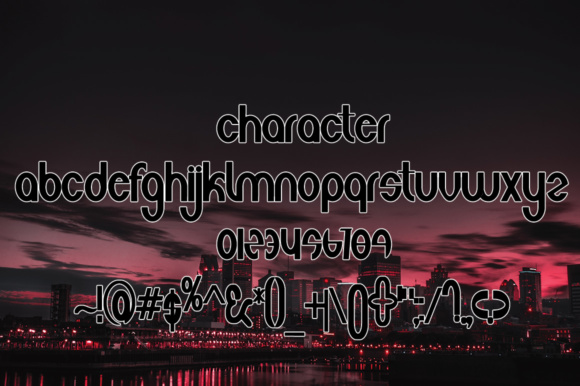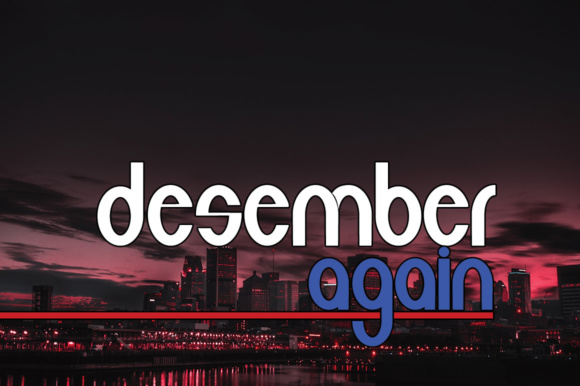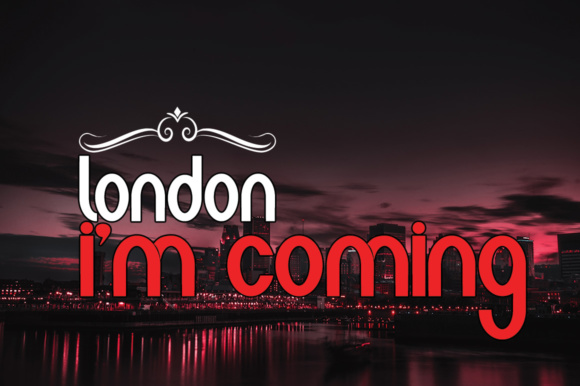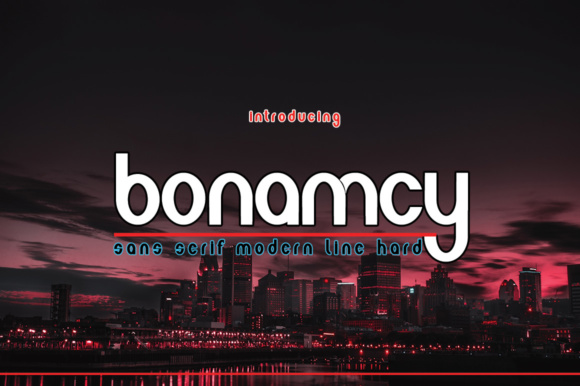
Discover the Bold and Beautiful Bonamcy Font
Are you a designer or crafter looking for a unique and eye-catching font to elevate your creative projects? Look no further than the Bonamcy Font, a stunning rounded, bold sans font that’s sure to make a statement. In this article, we’ll dive into the world of Bonamcy, exploring its features, benefits, and uses, as well as provide tips and inspiration for incorporating it into your work.
What is Bonamcy Font?
Bonamcy is a rounded, bold sans font that’s perfect for designers and crafters seeking a modern, yet approachable aesthetic. Its smooth, curved lines and bold weight make it an excellent choice for headlines, titles, and other display text. The font’s rounded edges give it a friendly, approachable feel, making it ideal for projects that require a touch of personality.
Key Features of Bonamcy Font
- Rounded and Bold: Bonamcy’s unique combination of rounded edges and bold weight creates a striking visual effect that’s sure to grab attention.
- Versatile: This font is perfect for a wide range of projects, from digital designs to print materials, and can be used for headlines, titles, and body text.
- Easily Readable: Despite its bold weight, Bonamcy is surprisingly easy to read, making it an excellent choice for body text and other longer-form content.
- Highly Customizable: Bonamcy can be easily customized to fit your project’s specific needs, from adjusting font size and color to experimenting with different textures and effects.
Benefits of Using Bonamcy Font
So why choose Bonamcy Font for your next project? Here are just a few benefits of using this versatile and stylish font:
- Adds Visual Interest: Bonamcy’s unique rounded edges and bold weight add visual interest to any project, making it perfect for designers looking to create something eye-catching.
- Conveys Friendliness and Approachability: The font’s rounded edges give it a friendly, approachable feel that’s perfect for projects that require a touch of personality.
- Improves Readability: Despite its bold weight, Bonamcy is surprisingly easy to read, making it an excellent choice for body text and other longer-form content.
- Enhances Branding: Bonamcy can be used to create a consistent visual brand identity, helping to establish your brand as modern, approachable, and stylish.
Using Bonamcy Font in Your Design Projects
So how can you incorporate Bonamcy Font into your design projects? Here are a few ideas to get you started:
- Headlines and Titles: Use Bonamcy to create bold, eye-catching headlines and titles that grab attention and draw the reader in.
- Logos and Branding: Bonamcy’s unique rounded edges and bold weight make it an excellent choice for logos and branding materials.
- Posters and Flyers: Use Bonamcy to create striking posters and flyers that showcase your message in a clear and visually appealing way.
- Digital Designs: Bonamcy is perfect for digital designs, from social media graphics to website headers and more.
Tips and Tricks for Working with Bonamcy Font
Here are a few tips and tricks to help you get the most out of Bonamcy Font:
- Experiment with Font Sizes: Bonamcy looks great in a variety of font sizes, from large headlines to smaller body text.
- Play with Color: Bonamcy’s bold weight and rounded edges make it a great candidate for experimenting with different colors and textures.
- Combine with Other Fonts: Bonamcy pairs well with a variety of other fonts, making it easy to create visually interesting and dynamic designs.
| Font Name | Bonamcy Font |
| Author | jehansyah251 |
Bonamcy Font is a versatile and stylish rounded, bold sans font that’s perfect for designers and crafters looking to add a touch of personality to their projects. With its smooth, curved lines and bold weight, Bonamcy is sure to make a statement in any design. Whether you’re working on a digital project, print materials, or something else entirely, Bonamcy is an excellent choice for adding visual interest, conveying friendliness and approachability, and enhancing your brand’s visual identity.